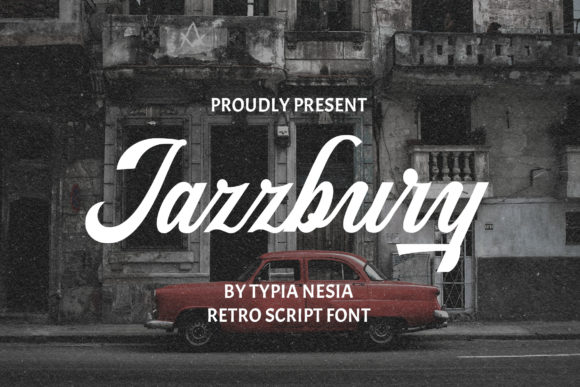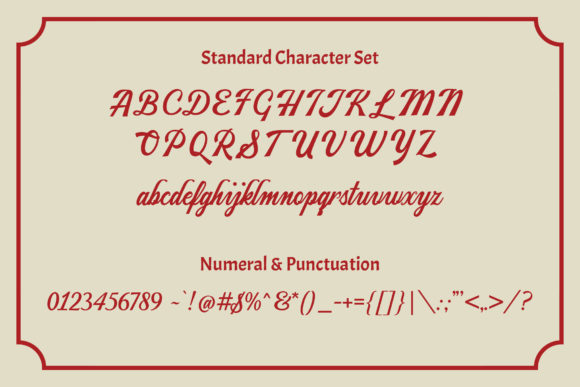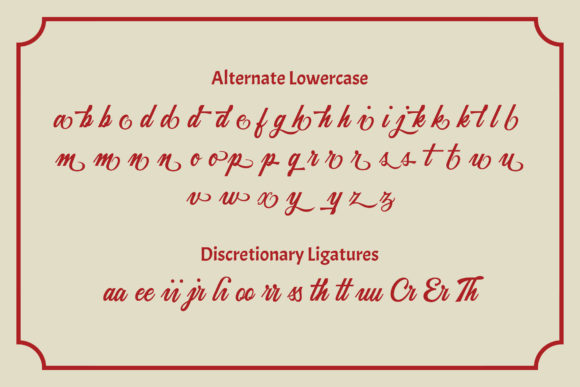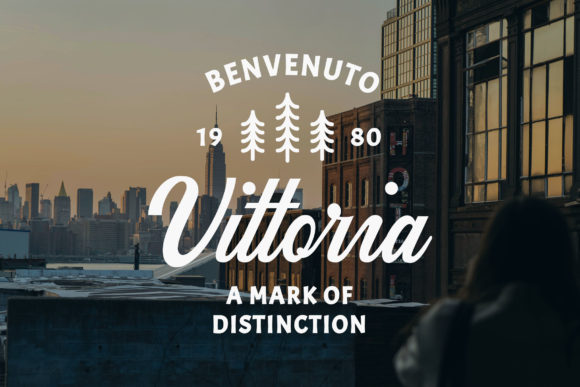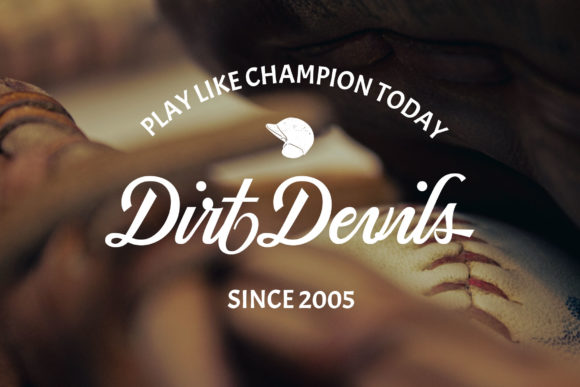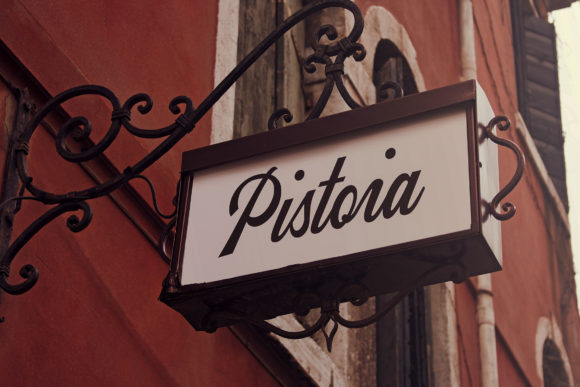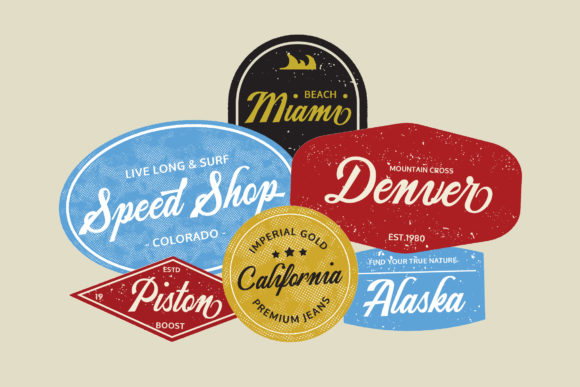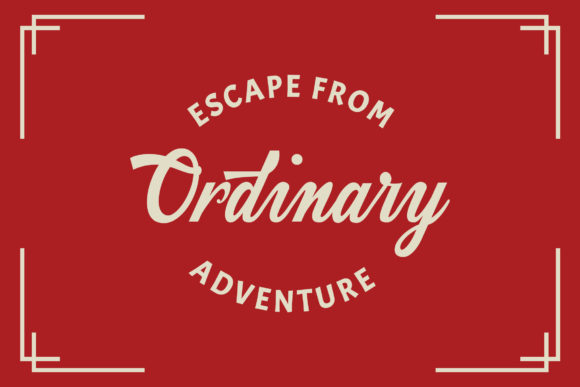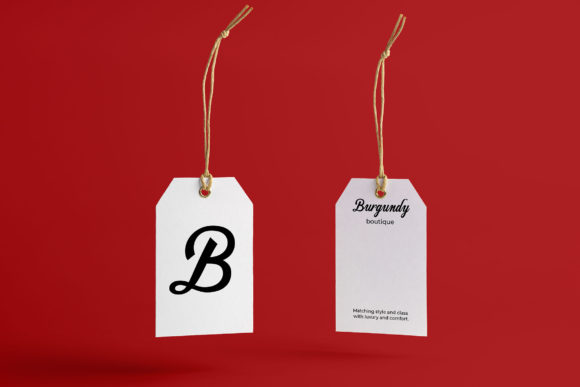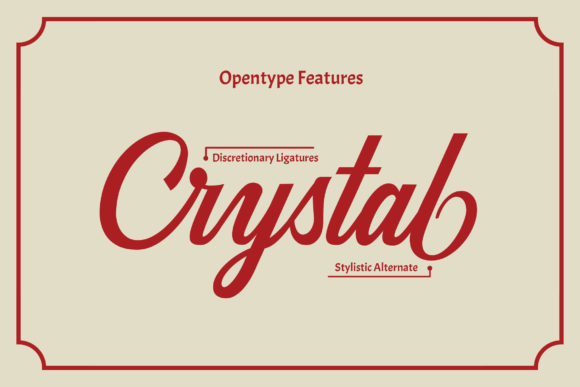
Jazzbury Font
About Jazzbury Font
Jazzbury is a bold and vintage handwritten font, carefully handcrafted to become a true favorite. Its casual charm makes it appear wonderfully down-to-earth, readable and, ultimately, incredibly versatile. Jazzbury will look outstanding in any context, whether it’s being used on busy backgrounds or as a standalone headline!